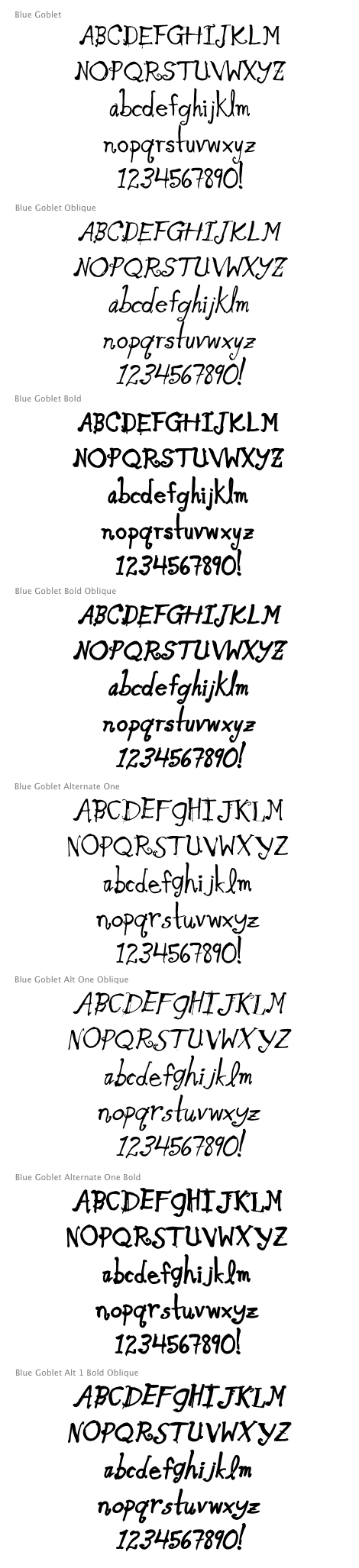
Blue Goblet Complete Family (8 fonts) (Insigne)
Blue Goblet Ornaments are the ornament complement to Blue Goblet, a fun and whimsical brush script. These lively and cheerful ornaments can be resized and rotated easily without any loss of quality and can easily be converted to outlines and modified. Combine them to form unique compositions or insert them into text to add some excitement to your designs. Blue Goblet Ornaments is a collaboration between insigne Design and Portland Studios.FONTHAUS END USER LICENSE AGREEMENT